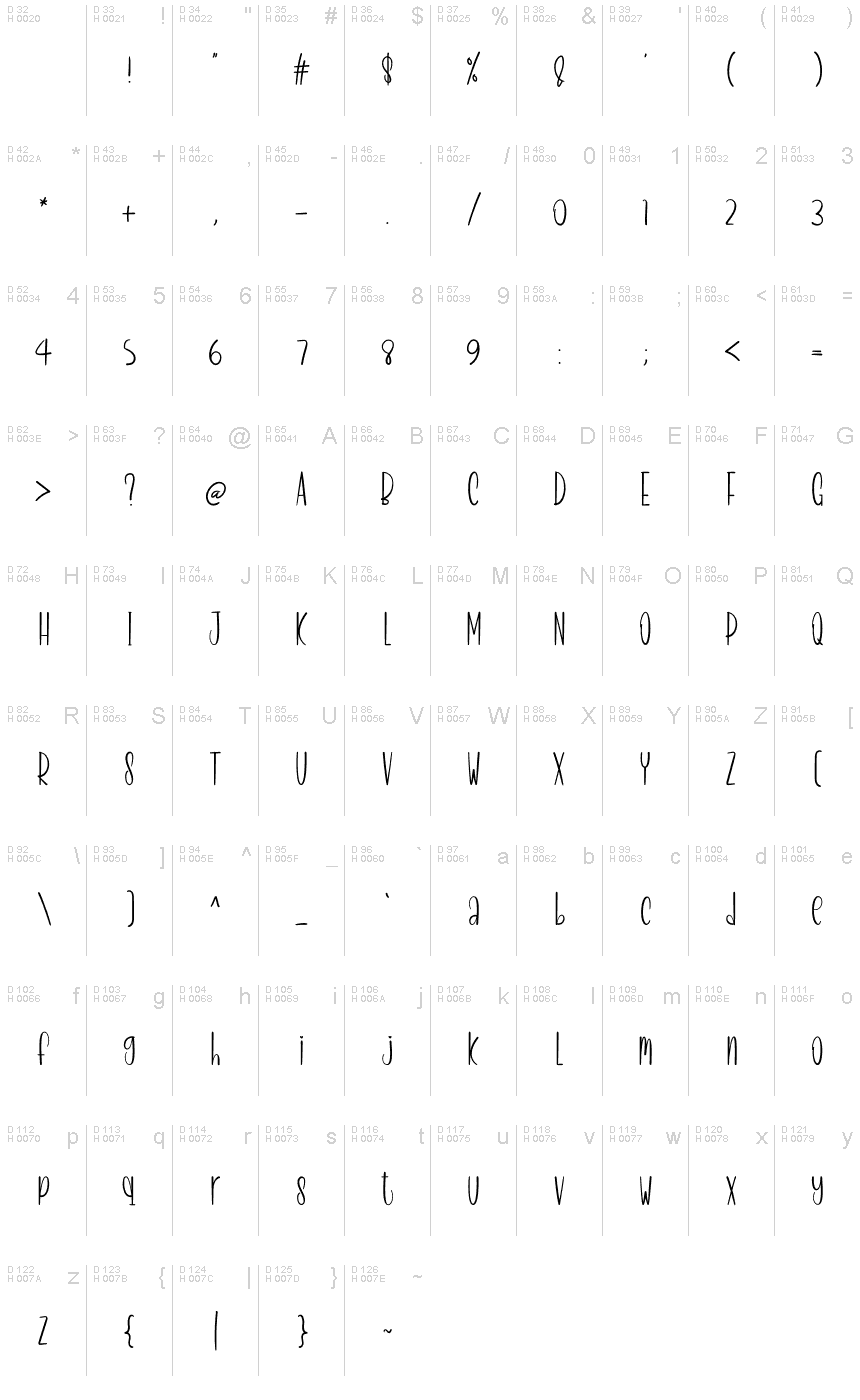
Fall In Love
Fall In Love, created by 39, is a stunning handwritten font that exudes elegance and grace. Its light weight adds a delicate touch to any project, while its extra-condensed width makes it perfect for fitting in tight spaces.
This versatile font is suitable for a wide range of projects. Capture attention with captivating wall displays or leave a lasting impression with enchanting wedding invitations. Create eye-catching social media post logos or make your advertisements stand out with its unique style. Enhance product packaging and designs, or add a touch of sophistication to labels and photography.
Make your mark with Fall In Love by using it as a watermark on your creative works or add an air of refinement to invitations and stationery. Whatever project requires impressive typography, this beautiful handwritten font is sure to leave an unforgettable impression.